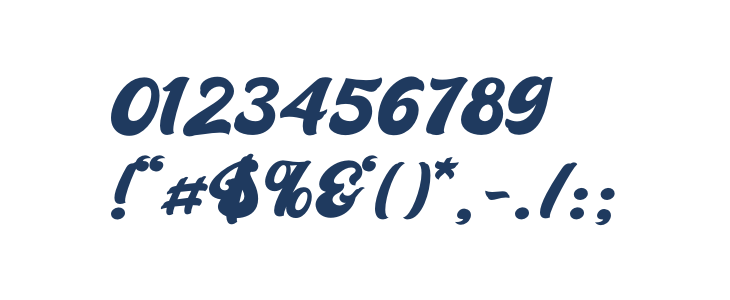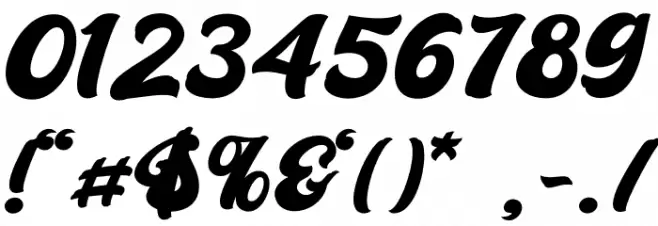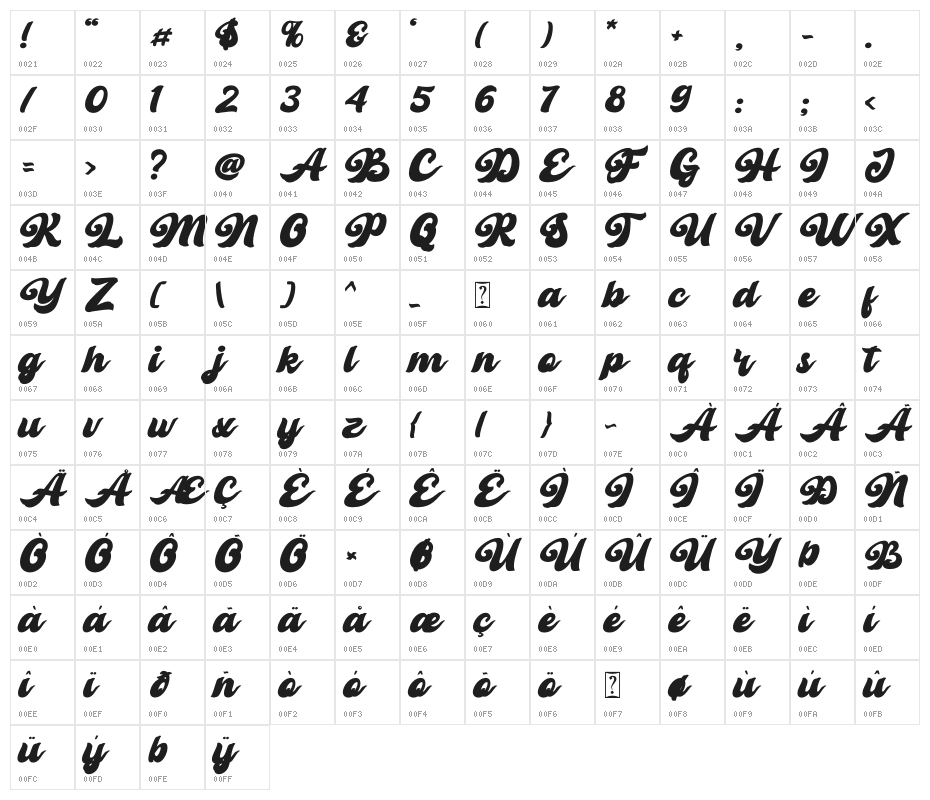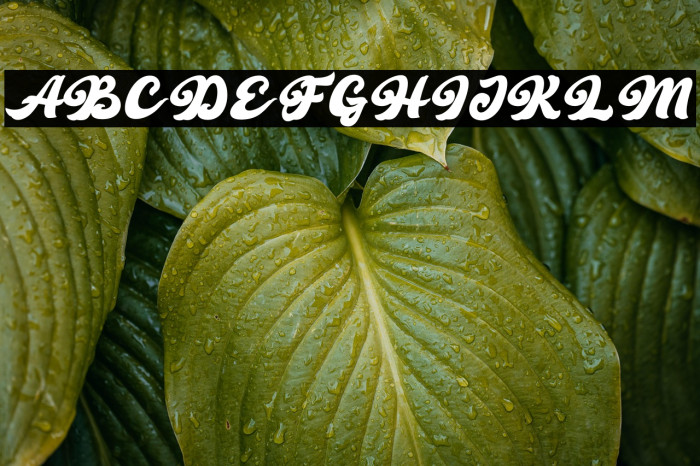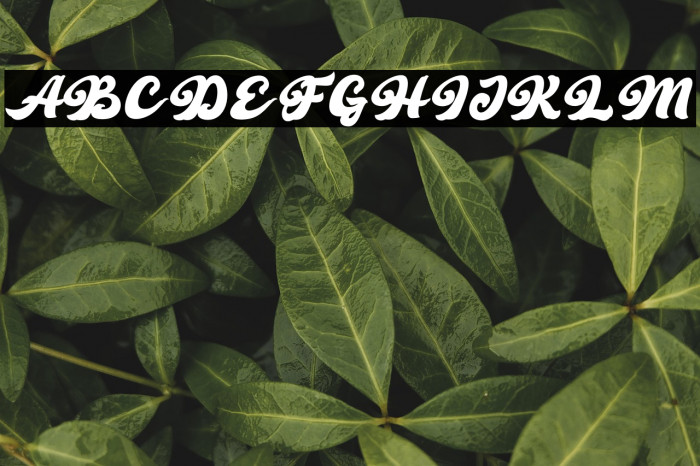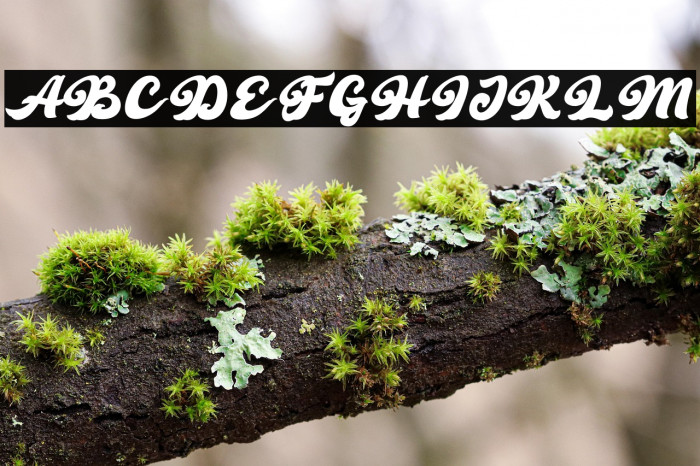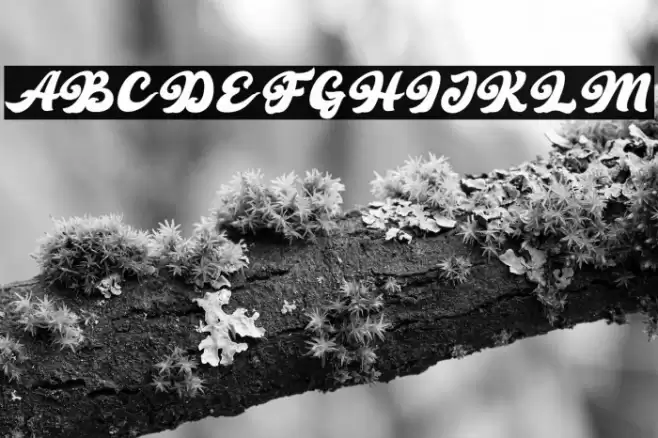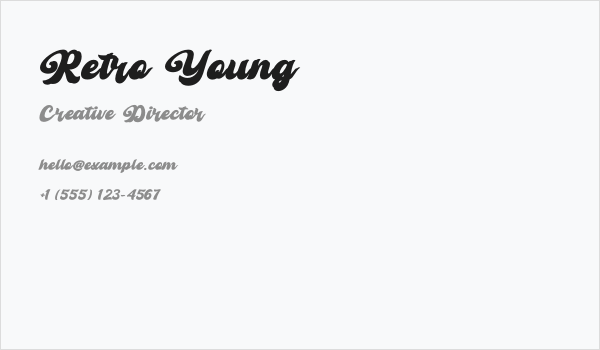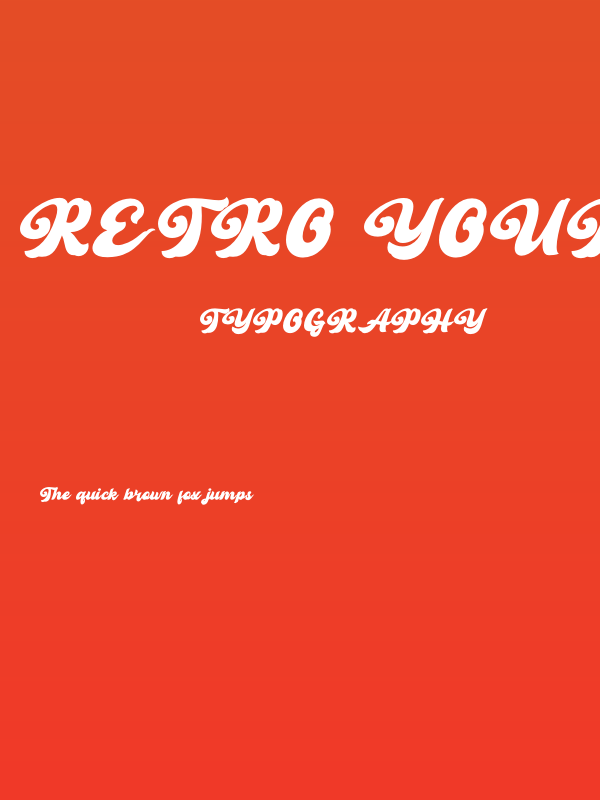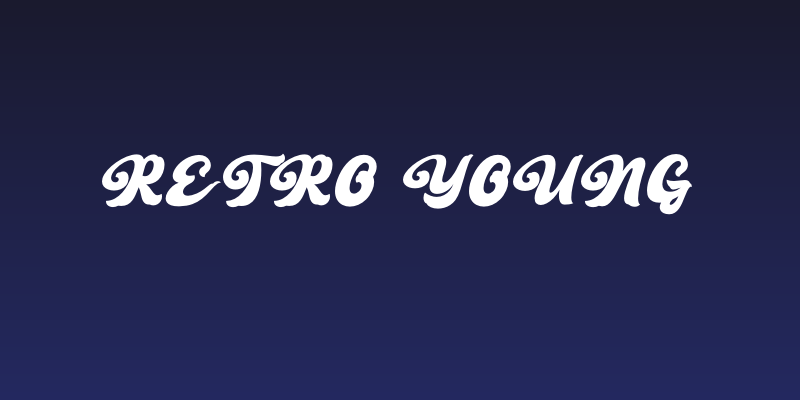
Retro Young Font
Retro Young Description
This font exudes a bold, retro charm with its thick, flowing script style. The characters are designed with a sense of movement and flair, reminiscent of vintage signage and advertisements. Each letter features smooth curves and a consistent stroke weight, creating a cohesive and dynamic appearance. The uppercase letters are particularly striking, with their elaborate swashes and loops, while the lowercase letters maintain a playful yet elegant form. The numerals and special characters are equally expressive, adding to the font's overall versatility. This font is perfect for projects that require a touch of nostalgia and personality.
| Proposed Projects | Ideal for retro-themed posters, vintage branding, signage, and creative invitations. |